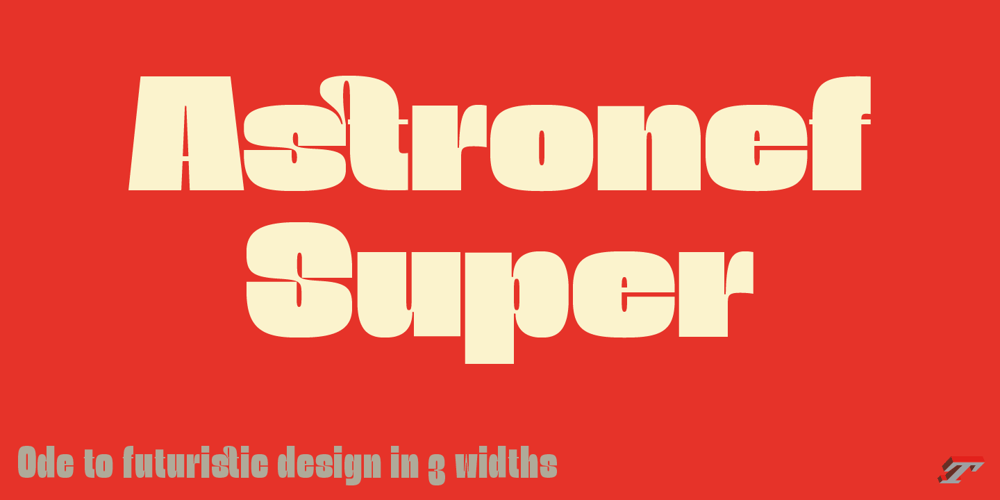
Astronef Super Std
Astronef Super Std font
Astronef Super Std Font Family was designed by Jean François Porchez and published by Typofonderie. Astronef Super Std contains 3 styles and family package options. The Astronef Super borrows from the charm of retro-futuristic universes. Without concessions, and even radical, the Astronef Super, declined in three styles, pushes the weight limits as far as possible systematically while preserving a unique design.Using the Astronef Super in large size is a real pleasure, it is a very identifiable typeface family, recognizable immediately. Undeniably, choosing the Astronef Super in your designs is not insignificant. This typeface used in large sizes will strengthen your graphic identities.BackgroundThe Astronef Super could be considered as the “Spin-off” of the Astronef currently being designed, that will offer an important variation of styles. Of course the Astronef, is wiser in his drawing, it places himself in the tradition of the Univers more than the Helvetica.Genesis and the creative processThe idea for an Astronef Super comes from an excerpt from a 60s TV show which shows a logo in the background with a very bold S and this super thin in the middle.The Astronef is already modular in its design. The brief then becomes simple for the Super: accentuate the strongest weights of the Astronef by minimizing the counterform that will remain constant for the three styles. It is the mass effect that maintains the overall cohesion of the Astronef Super family.